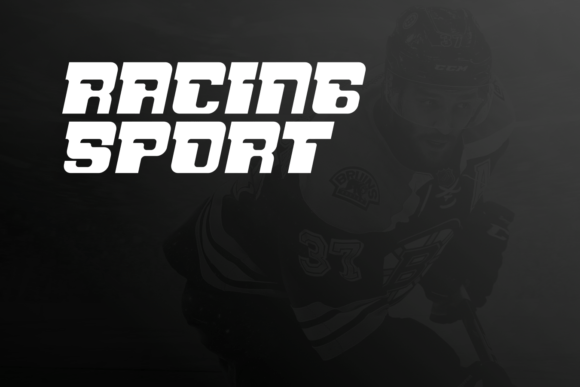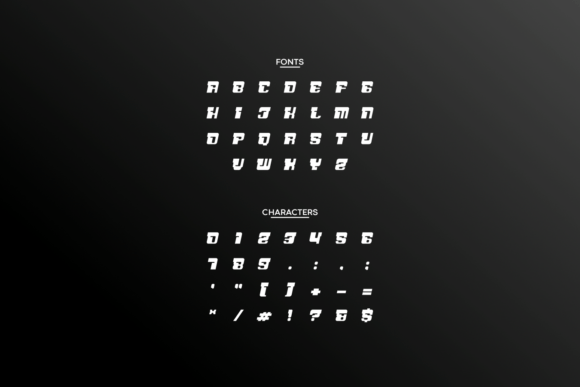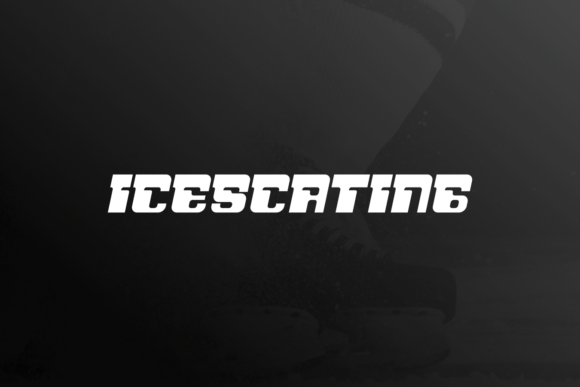
Unleash Your Creativity with Bagroen Font
Do you remember that moment when a burst of creativity hits you, and you just can’t wait to bring your idea to life? Maybe it’s a new logo design, a catchy headline, or an eye-catching poster – whatever it is, you know it needs to be perfect. And that’s where the right font comes in. A font that can elevate your design, make it stand out, and leave a lasting impression.
That’s where the Bagroen Font comes in – a stylish and cool display font designed to take your creative ideas to new heights. Whether you’re a seasoned designer or just starting out, this font is sure to become a valuable addition to your toolkit. With its unique blend of style and sophistication, Bagroen Font is the perfect choice for anyone looking to add a touch of elegance to their designs.
With the Bagroen Font, you’ll be able to create designs that are truly memorable, and that’s what sets it apart from other fonts. Its versatility and ease of use make it a must-have for designers of all levels.
Bagroen Font Key Features
- Font Family: Bagroen is a sans-serif font family, ideal for modern designs and user interfaces.
- Unique Characteristics: Bagroen features a distinctive geometric design, with clean lines and a modern aesthetic, making it perfect for digital products and branding.
Designer Review: Bagroen Font
Overall, I have mixed feelings about the Bagroen font. While it has some unique features, it falls short in terms of legibility and versatility.
- Unique aesthetic: Bagroen has a distinct, hand-drawn feel that sets it apart from other sans-serif fonts.
- Playful vibe: The font’s quirky nature makes it suitable for creative projects, such as children’s books or advertising campaigns.
- Good for headlines: Bagroen’s bold, attention-grabbing style makes it effective for headlines and titles.
- Limited legibility: The font’s irregular shapes and connections can make it difficult to read, especially at smaller sizes.
- Lack of versatility: Bagroen’s unique style may not be suitable for all types of content, such as technical writing or formal documents.
- No language support: I couldn’t find information on language support for Bagroen, which may limit its use for multilingual projects.
In conclusion, while Bagroen font has some interesting features, its limitations may make it less suitable for everyday use. It’s best suited for creative projects where its unique aesthetic can shine.
Getting the Most Out of Bagroen
For optimal results, use the Bagroen font in conjunction with high-quality images and a clear, easy-to-read layout.
Experiment with different font sizes, colors, and styles to find the perfect balance for your design.
The Bagroen font is well-suited for:
- Display headings and titles.
- Creating a modern, minimalist aesthetic.
- Designing for print or digital media.
What is the character set and language support for Bagroen Font?
The Bagroen Font includes a comprehensive character set that supports over 200 languages, including Latin, Cyrillic, Greek, and many other scripts. The font also includes support for Unicode characters, making it suitable for use in a wide range of applications and languages.